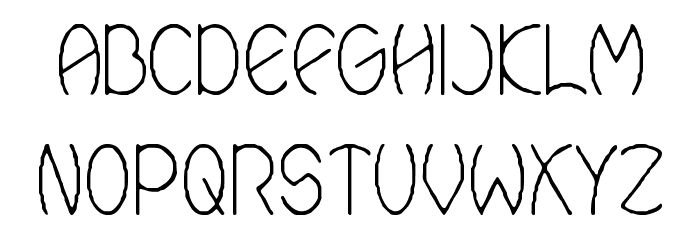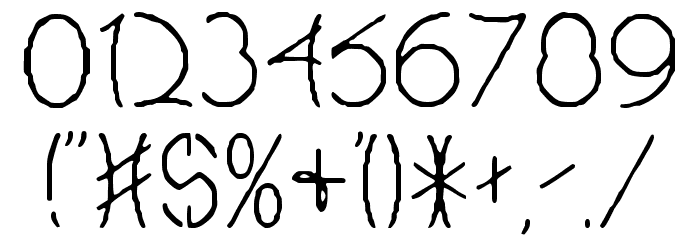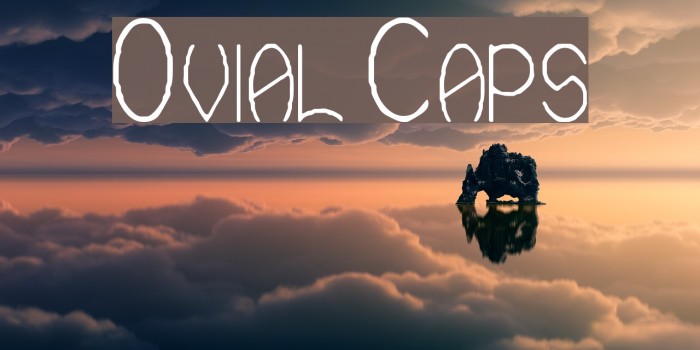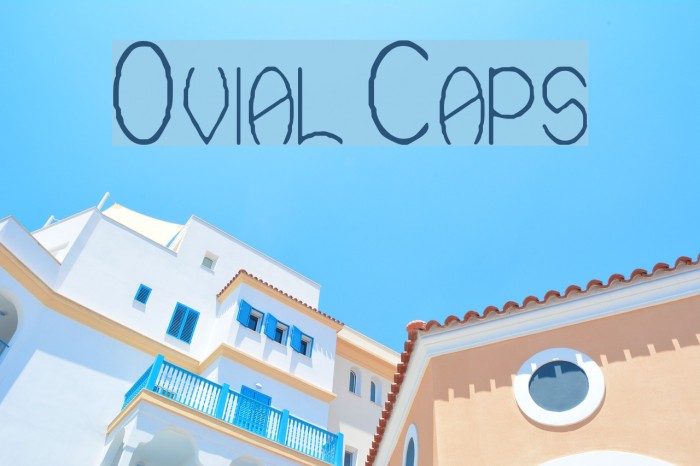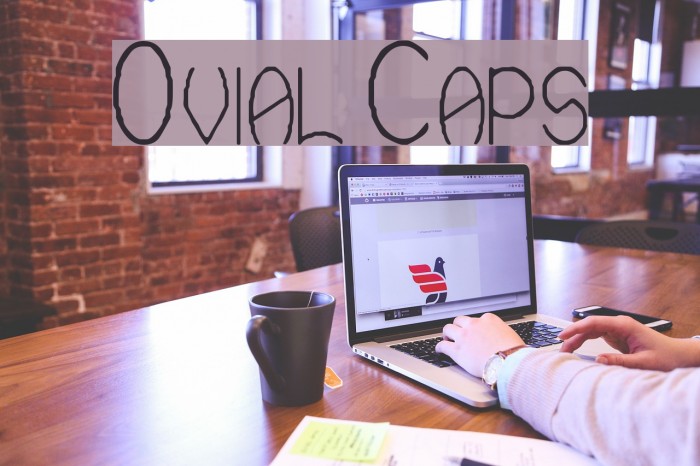
Ovial Caps Font
This font features a unique, hand-drawn style with a playful and artistic flair. The characters are elongated with a slight irregularity that adds a whimsical touch. The strokes are uneven, giving it a dynamic and lively appearance. The uppercase and lowercase letters maintain a consistent style, while the numerals and special characters complement the overall design. The font's organic feel makes it suitable for creative projects that require a personal and informal touch.
A playful, hand-drawn font with elongated, irregular strokes.
- Proposed Projects: Ideal for children's books, art projects, greeting cards, and creative branding.
- Category: Handwritten
- Use Case: Logos, Headlines, Creative projects